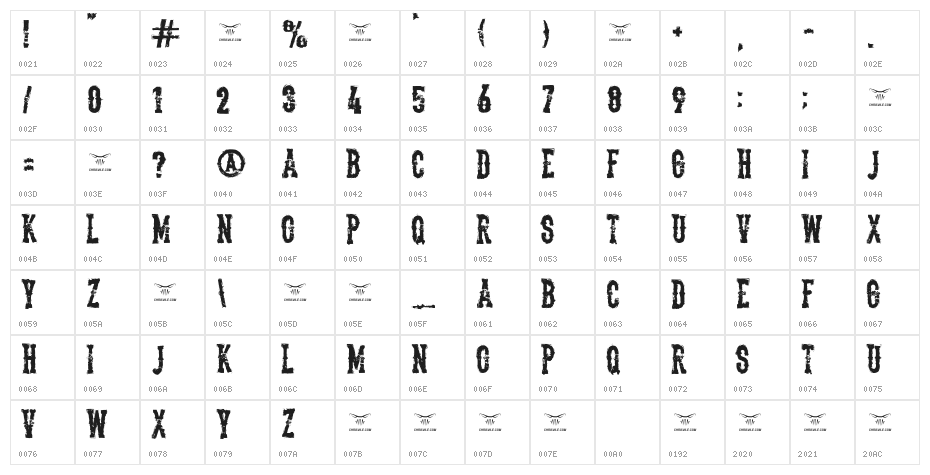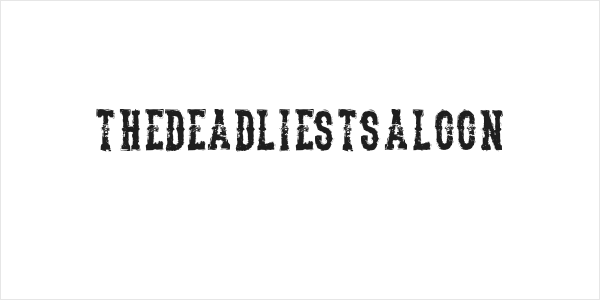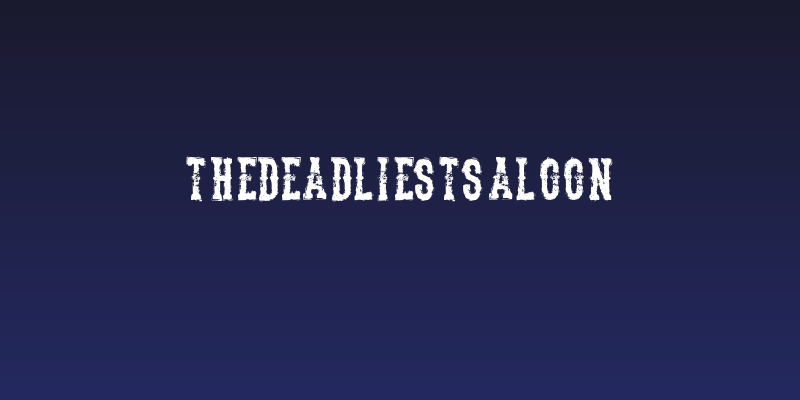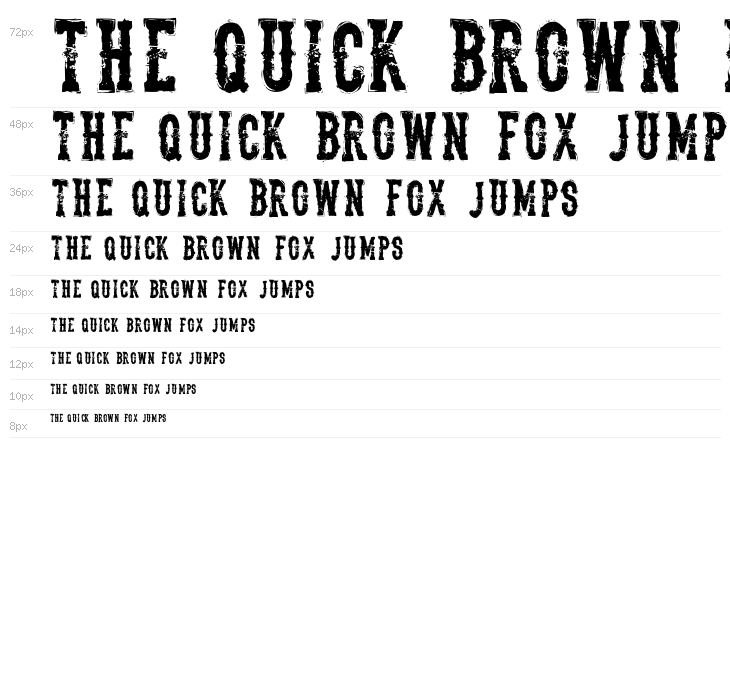
TheDeadliestSaloon Font
TheDeadliestSaloon Description
This font features a rugged, distressed appearance with a bold and impactful style. Each character is heavily textured, giving it a worn, vintage look reminiscent of old western signage or saloon aesthetics. The uppercase and lowercase letters maintain a consistent design, with thick strokes and rough edges that suggest a sense of history and character. Numbers and special characters follow the same distressed pattern, ensuring uniformity across all glyphs. This font is ideal for projects that require a touch of nostalgia or a gritty, rustic feel.
| Proposed Projects | Perfect for vintage posters, western-themed events, rustic branding, and any project needing a rugged, historical touch. |